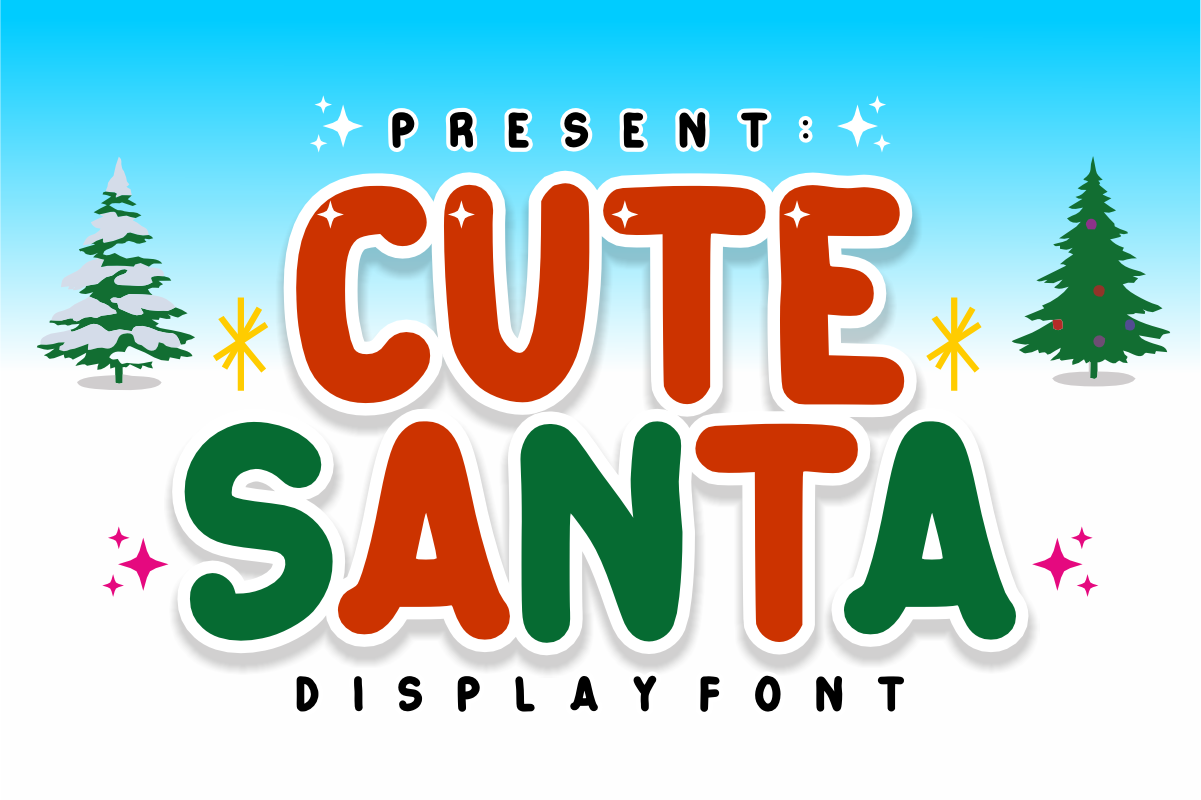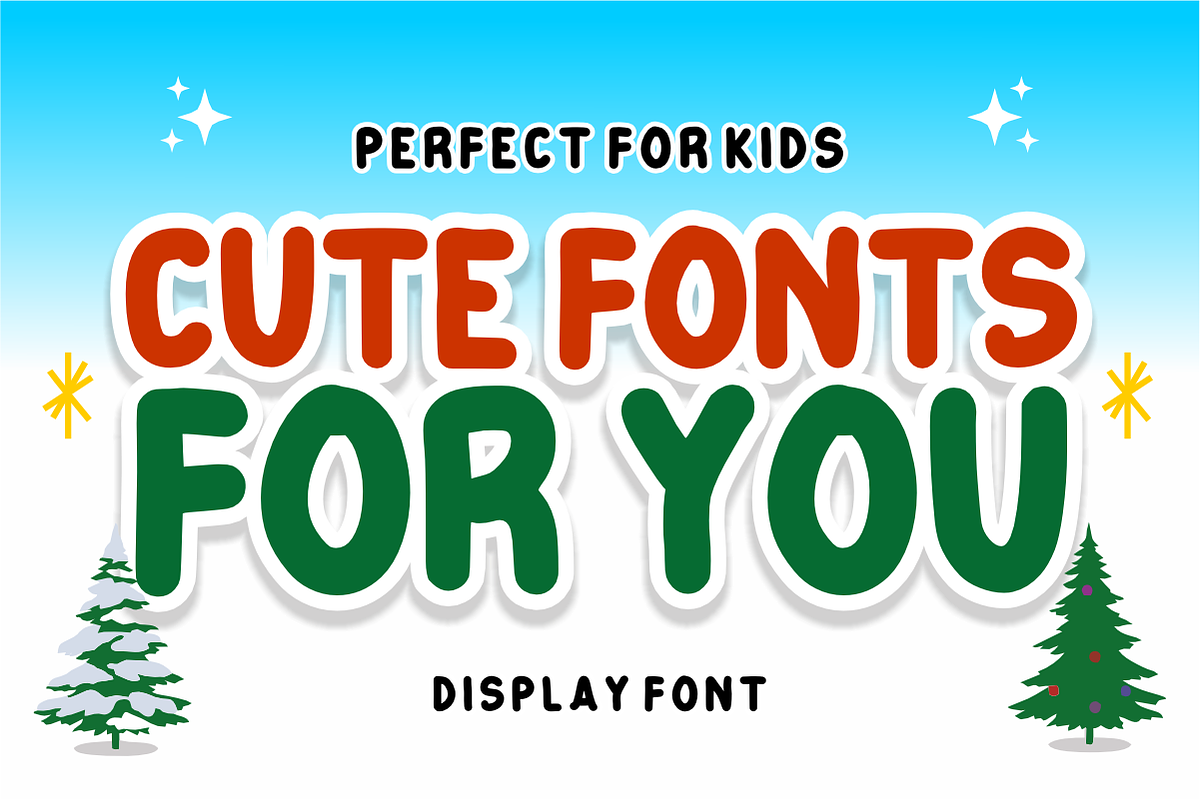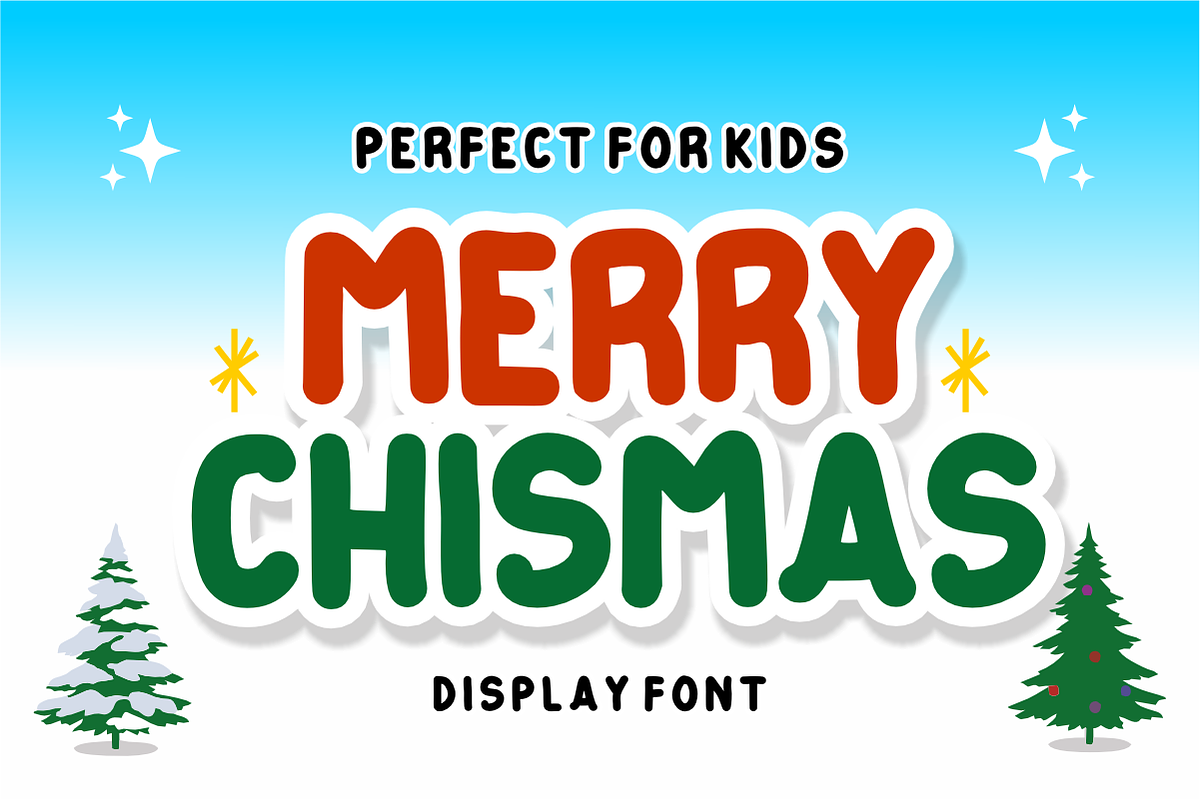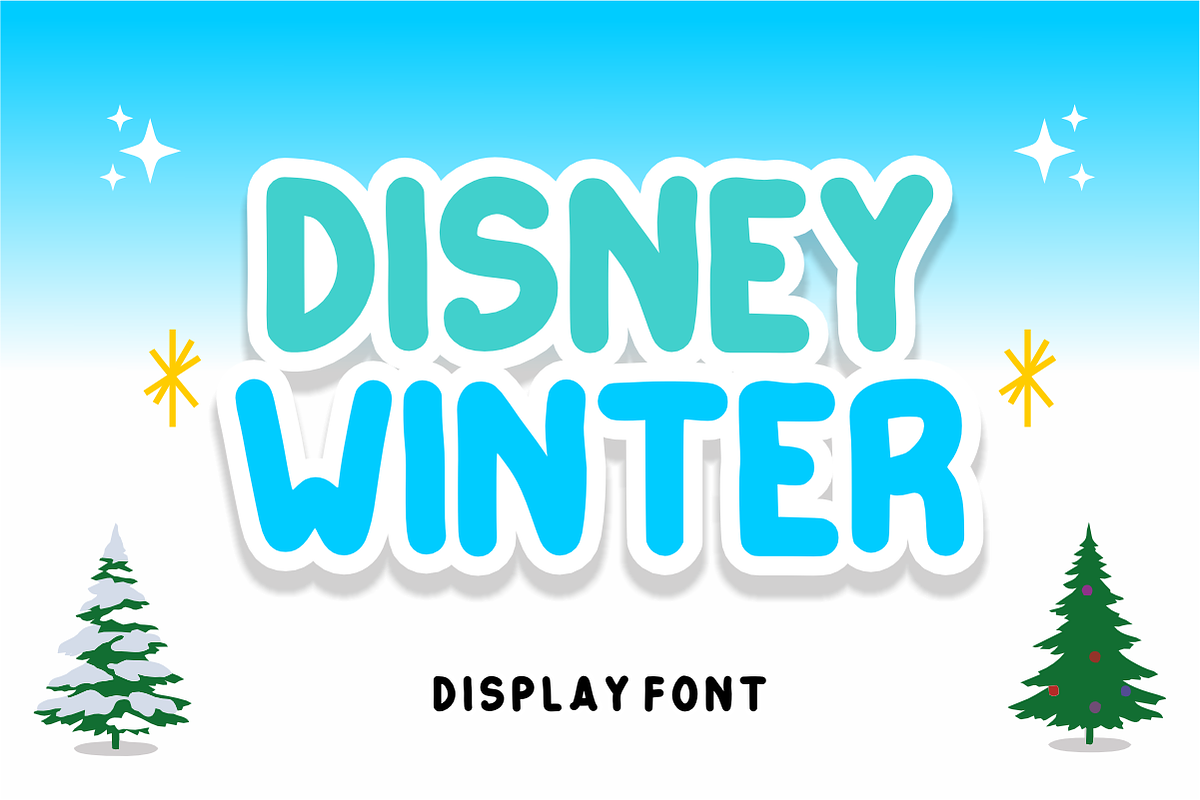
Cute Santa - Christmas Display Font
Cute Santa - Playful Christmas Display Font
Spread the joy and magic of the holiday season with Cute Santa! This ultra-chunky, merry display font features soft, beautifully rounded letterforms designed to make your seasonal headlines pop with an abundance of warmth and festive personality.
Perfect for holiday branding, winter celebrations, and trend-focused Christmas crafting, Cute Santa seamlessly balances a high-energy cartoon aesthetic with excellent legibility. It is highly versatile, expressive, and fully optimized for flawless integration across premium print and digital layouts.
All-Caps Character Set (Chunky, bold, and festive uppercase letters)
Numbers & Basic Punctuation (Essential, simple symbols included)
Christmas Greeting Cards, Holiday Party Invitations, & Gift Tags 🎄
Cricut, Silhouette, & DIY Holiday Craft Sublimation Projects ✂️
Winter Product Packaging, Festive Bakery Labels, & Seasonal Merch 🍪
Children’s Books, School Holiday Worksheets, & Classroom Decor 🎒
Social Media Graphics, Custom Stickers, & Cute Christmas Logos 📱